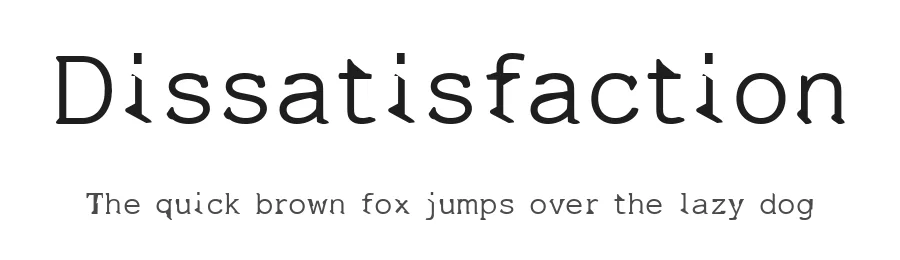
About Times New Arial Font
combination of Times New Roman and Arial.
font created by A.I. computer in 2697
TIMES NEW ARIAL MUSEUM
Times New Arial Font is a decorative font that shines as a display or heading face. Pair it with a clean sans-serif or serif font for body text β the contrast creates a clear hierarchy while the two styles stay balanced and easy to read.
Times New Arial Font
by JaCeeN